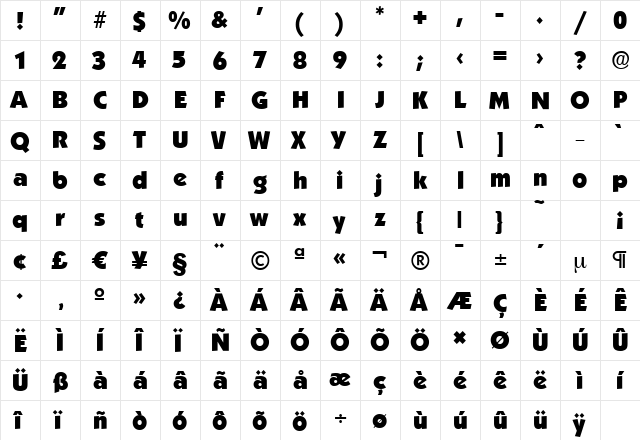
KoblenzSerial-Heavy Regular
Design Context for KoblenzSerial-Heavy Typeface
KoblenzSerial-Heavy takes a measured approach to typography — its balanced proportions and neutral character make it a reliable workhorse for both digital and print work.